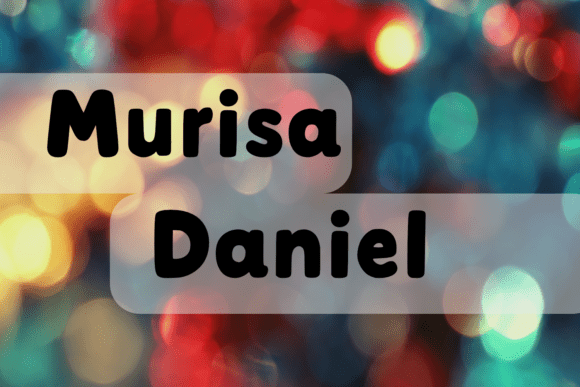
Murisadaniel Regular Font: A Cheerful and Versatile Display Sans
In the world of typography, fonts play a crucial role in conveying messages, expressing emotions, and creating brand identities. Among the numerous fonts available, Murisadaniel Regular Font stands out as a cheerful, rounded display sans that is perfect for creating big, friendly headlines. In this article, we’ll explore the features, benefits, and uses of Murisadaniel Regular Font, and why it’s an excellent choice for designers, marketers, and crafty enthusiasts.
Key Features of Murisadaniel Regular Font
- Smooth Curves and Pillow-Soft Terminals: Murisadaniel Regular Font boasts smooth curves and pillow-soft terminals, giving it a bubbly voice that’s both friendly and approachable.
- Even Stroke Weight: The font’s even stroke weight ensures clarity and readability, making it perfect for headlines, titles, and short texts.
- Wide X-Height and Open Counters: The wide x-height and open counters of Murisadaniel Regular Font make it highly legible on screens and in small prints, while also allowing it to make a bold statement at large sizes.
- Comprehensive Character Set: The font includes A-Z, a-z, numerals, and essential punctuation, with clean kerning for quick lockups.
Uses of Murisadaniel Regular Font
Murisadaniel Regular Font is a versatile typeface that can be used in a variety of design projects, including:
- Logos and Branding: The font’s bold and cheerful personality makes it perfect for creating logos, especially for brands that want to convey a friendly and approachable image.
- Packaging and Stickers: Murisadaniel Regular Font is ideal for packaging and stickers, adding a playful touch to product designs.
- Kids’ Apparel and Merch: The font’s bubbly voice and cute vibe make it a natural fit for kids’ apparel, accessories, and merchandise.
- Posters and Flyers: Use Murisadaniel Regular Font to create eye-catching posters and flyers that grab attention and convey a friendly message.
Design Tips and Tricks
To get the most out of Murisadaniel Regular Font, here are some design tips and tricks:
- Pair with a Neutral Grotesk: Pair Murisadaniel Regular Font with a neutral grotesk font for text to create a harmonious and balanced design.
- Layered Effects: Stack outline and fill versions of the font for layered effects that add depth and visual interest.
- Pastel Gradients: Add pastel gradients to lean into the cute vibe and create a design that’s both playful and eye-catching.
- Track Tight or Open: Experiment with tracking to create punchy badges or airy posters that suit your design needs.
Murisadaniel Regular Font is a versatile and cheerful display sans that’s perfect for designers, marketers, and crafty enthusiasts. With its smooth curves, pillow-soft terminals, and even stroke weight, this font is sure to bring a friendly and approachable tone to your designs. Whether you’re creating logos, packaging, stickers, or kids’ apparel, Murisadaniel Regular Font is an excellent choice. Its comprehensive character set, clean kerning, and technical optimization make it a valuable addition to any design project.